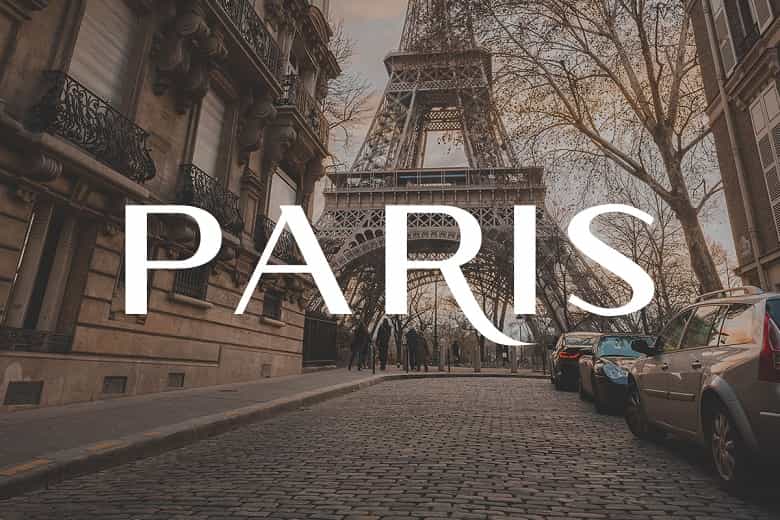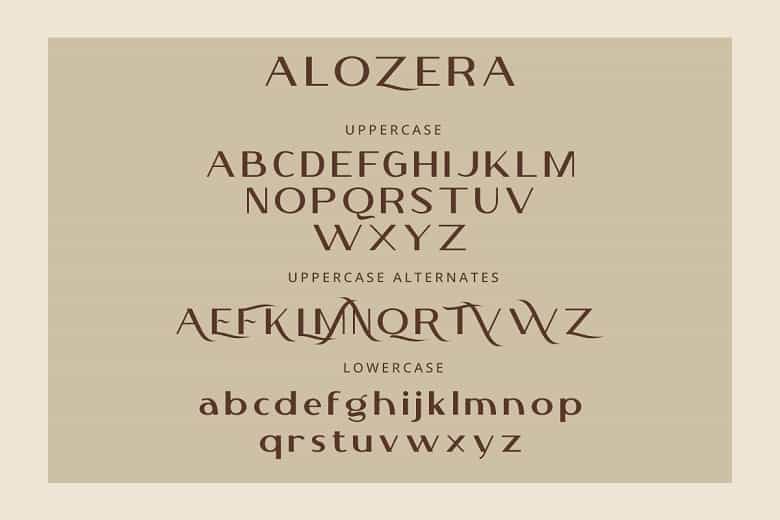
Alozera is a sans serif font with a modern, distinctive and chic appearance. This perception is what makes this font to be different from the other serif fonts. Letters of the Alozera font look like other fonts that are more or less monoblock but the letter shapes are bold and have lengthened curved. This font is quite distinguishable between the letters. It can read easily and in detail at close range as well as from a distance. The font is legible.